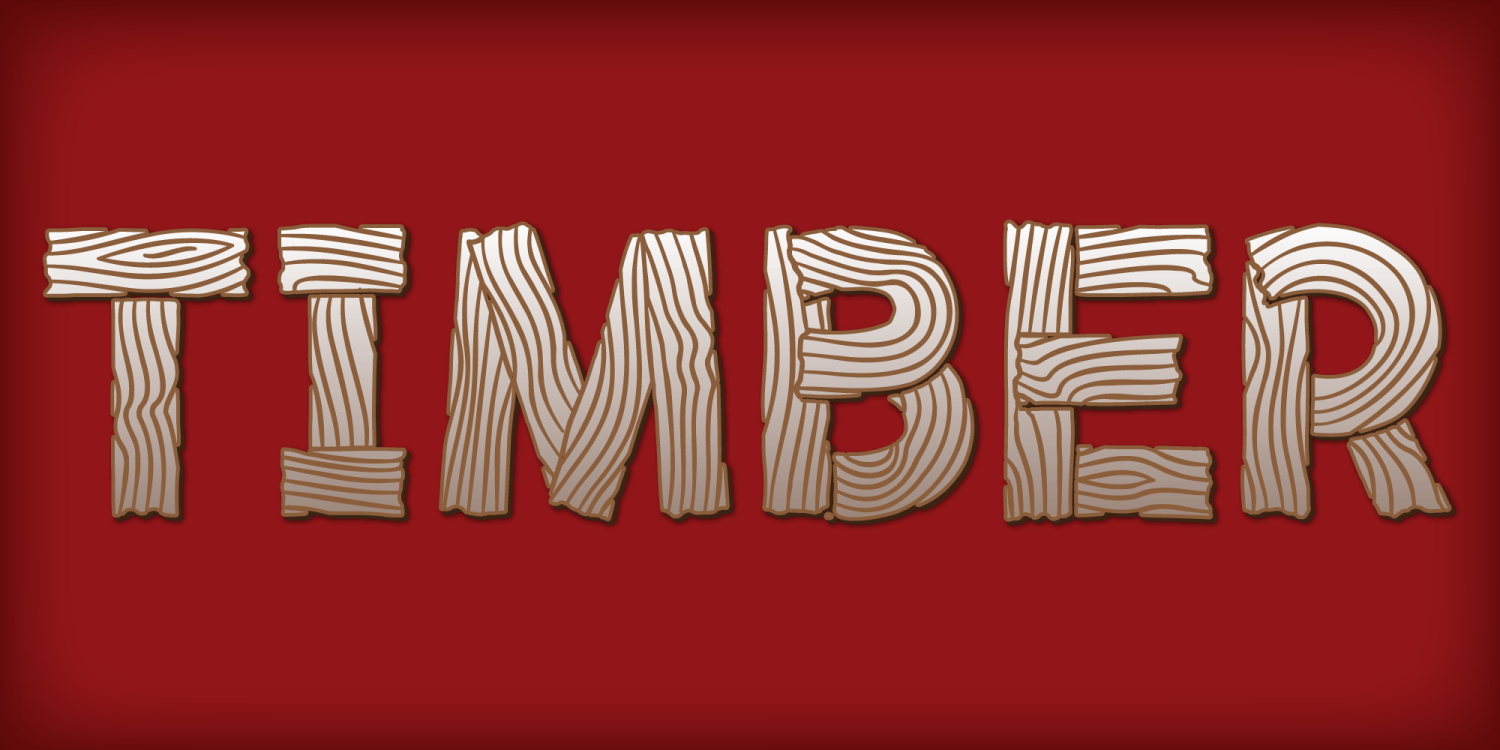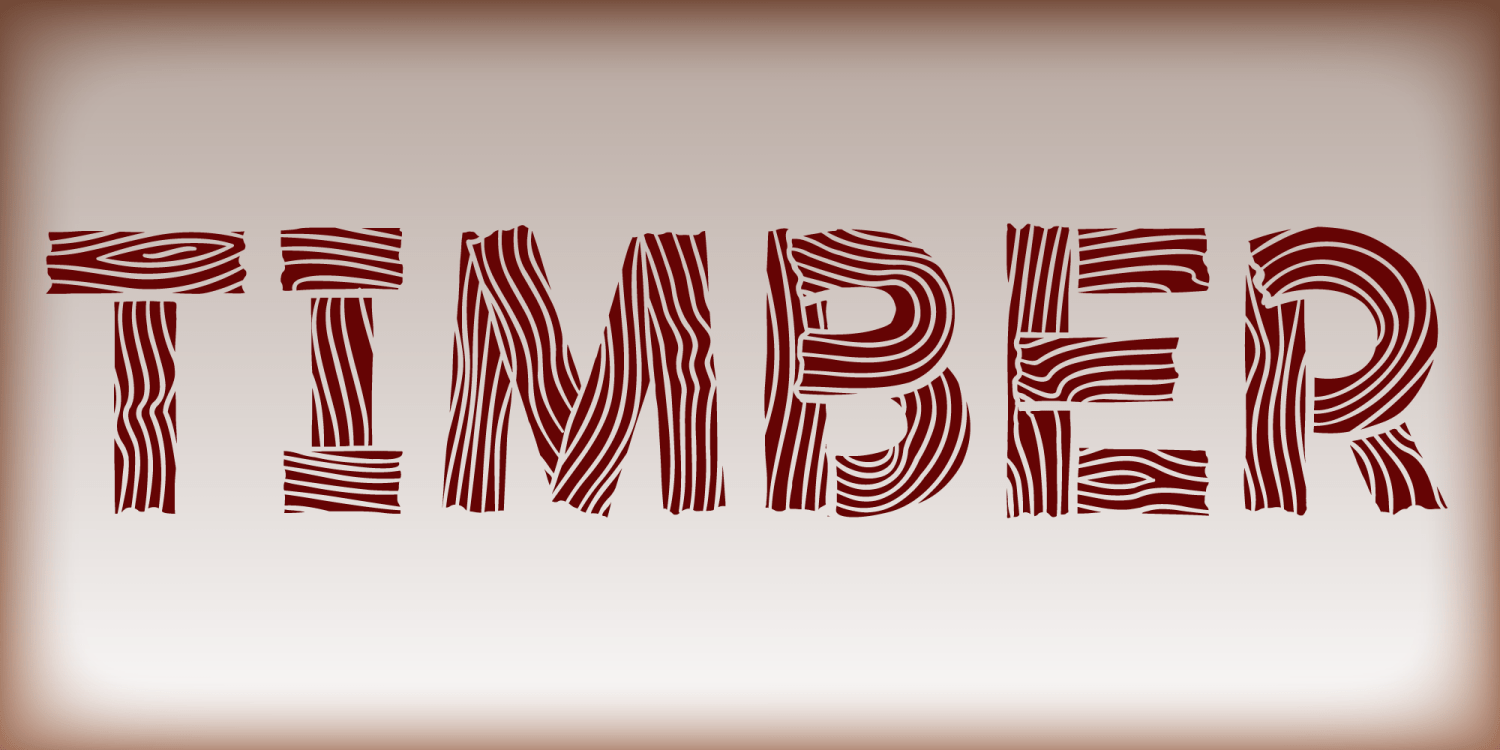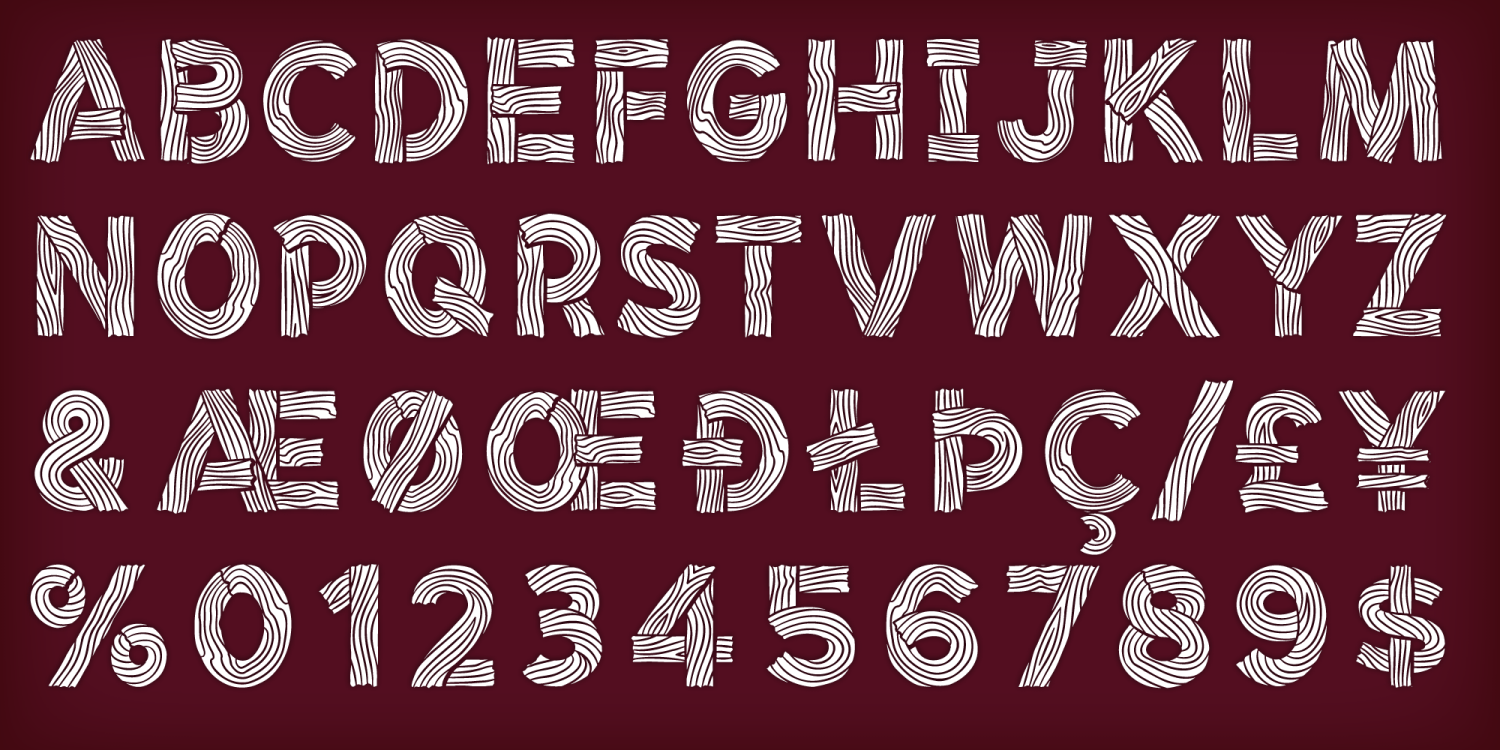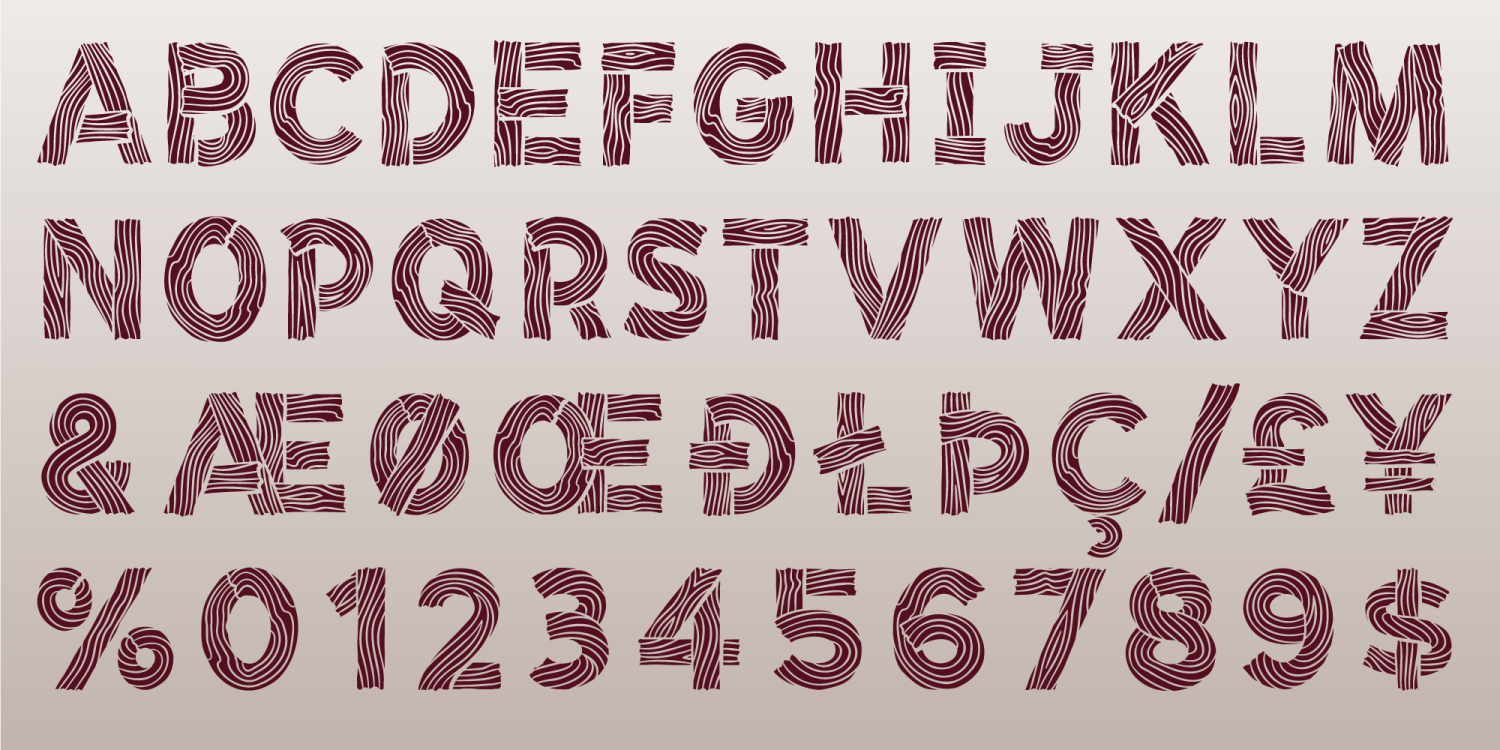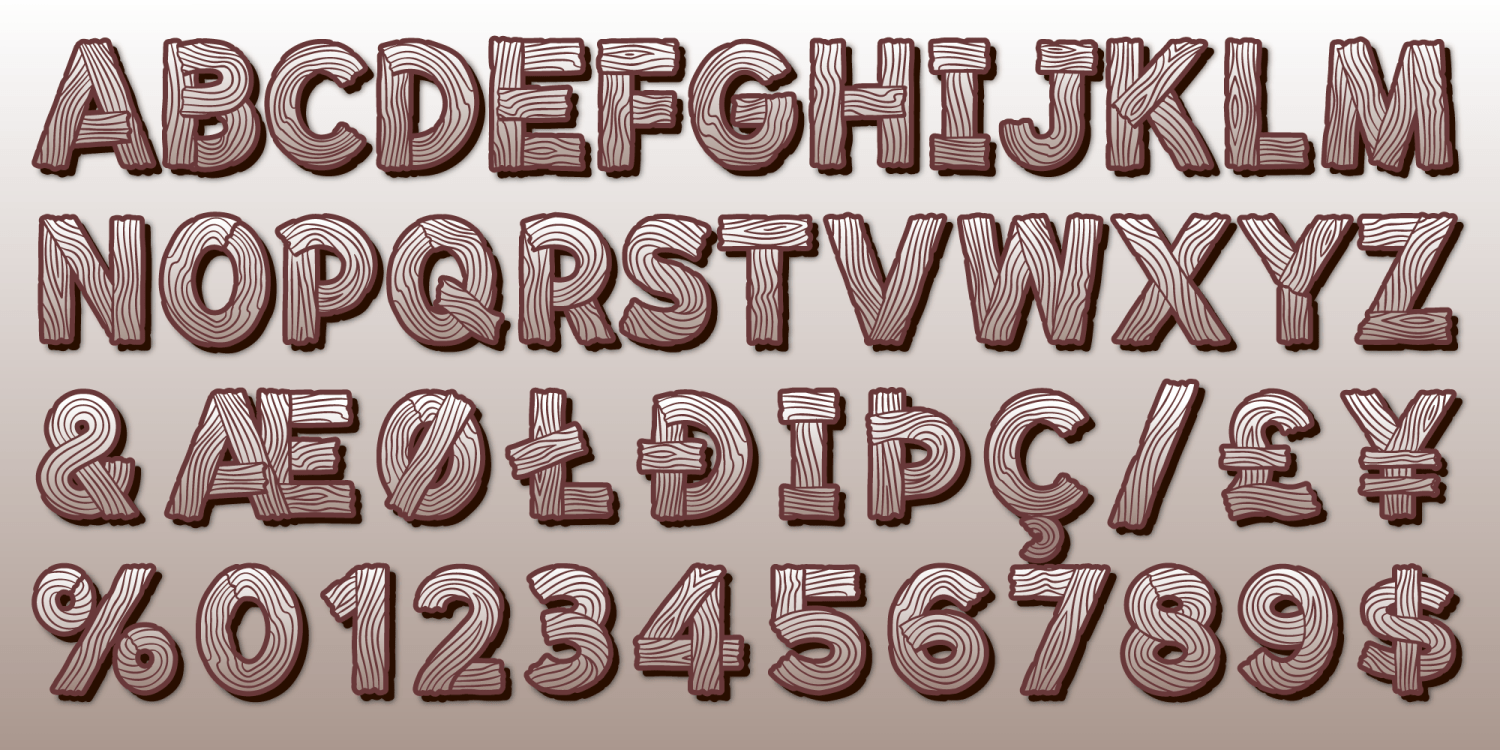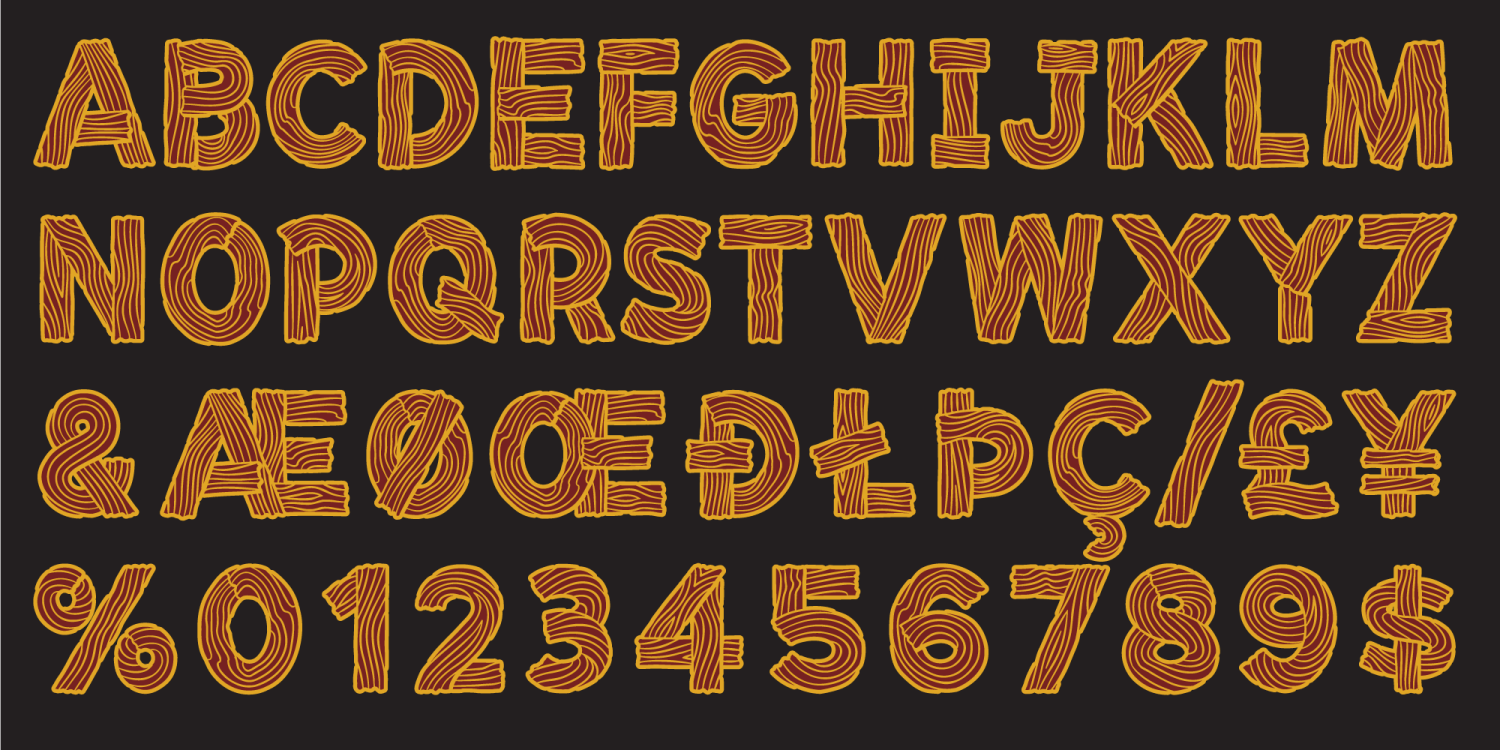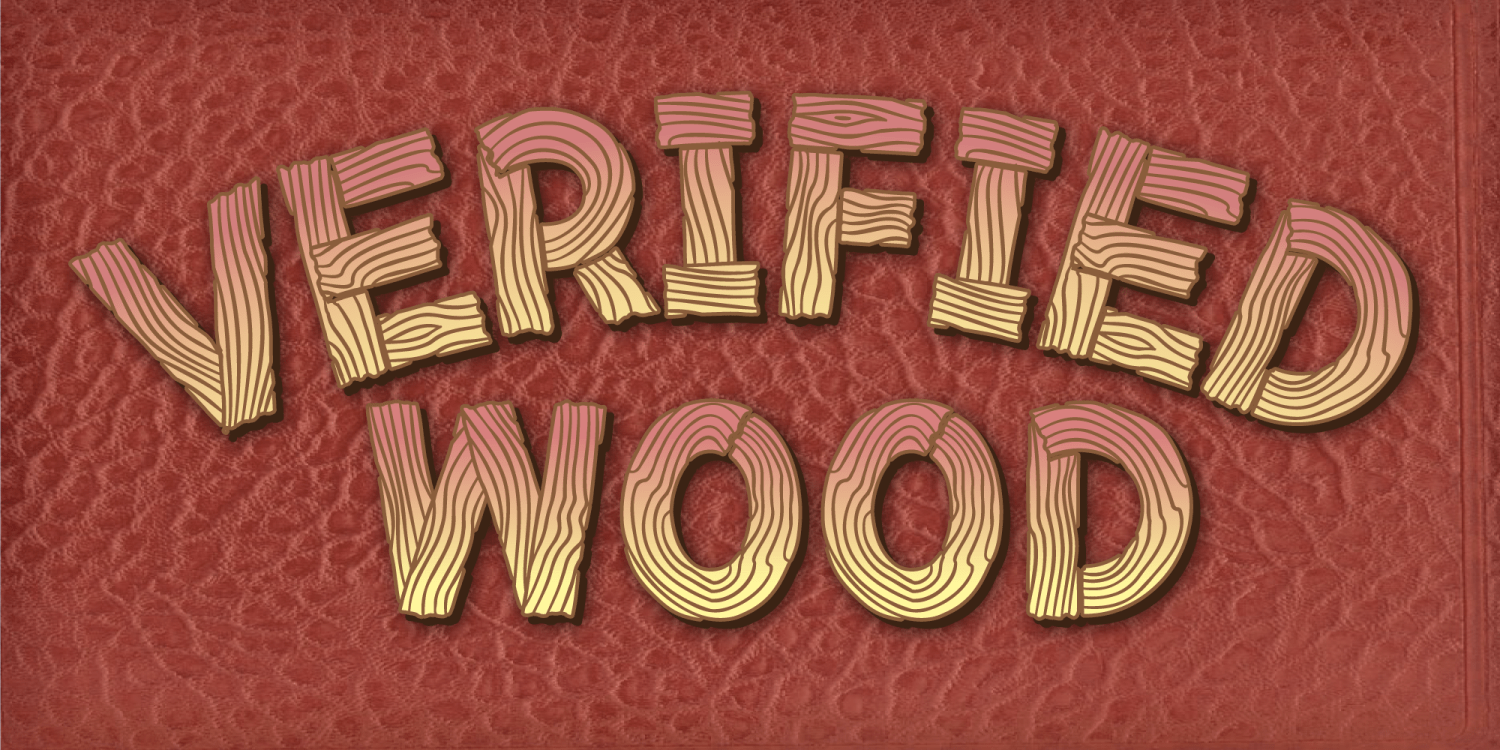
Timber
Font Family by Pelavin Fonts
Hand-hewn from sturdy planks with nary a splinter, Timber is a font with origins in the forests of our imagination whose genesis is displayed in its undulating grain. Using just the fill attribute it can present a diverse range of species from mellowest Maple to deepest Ebony. Additional layers of fill and stroke attributes provide the option for an endless variety of outlines and shadows, all the while preserving its luscious texture. If you've ever pined for a typographic solution which combines legibility with an organic character, you just might like to get on board.